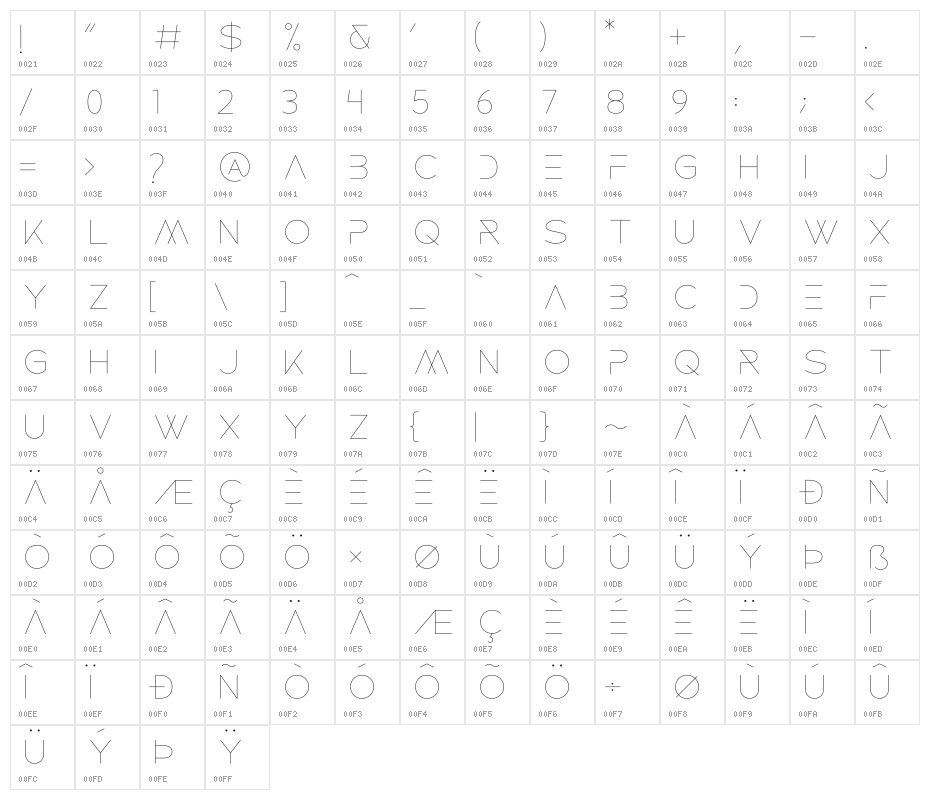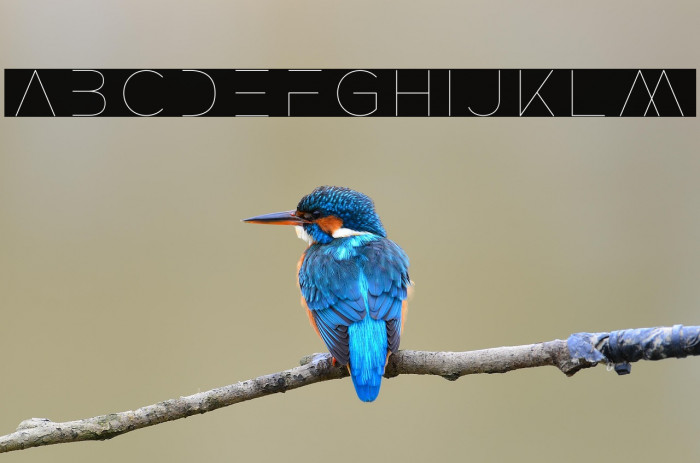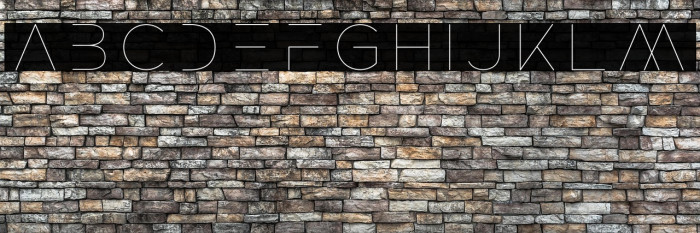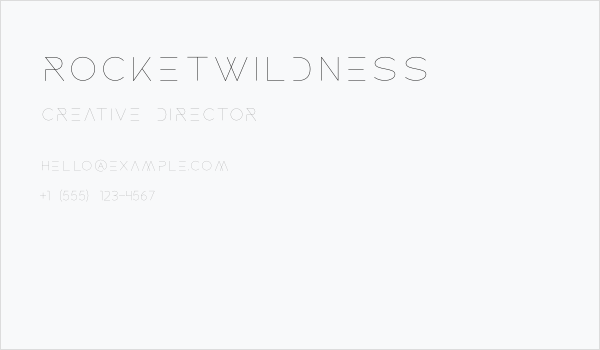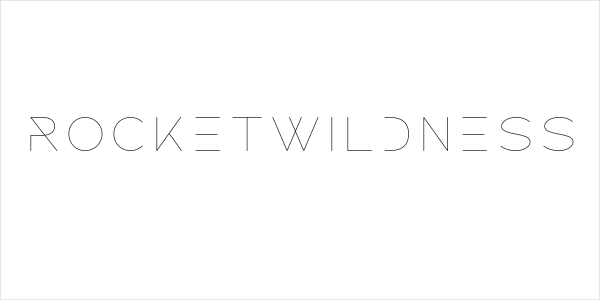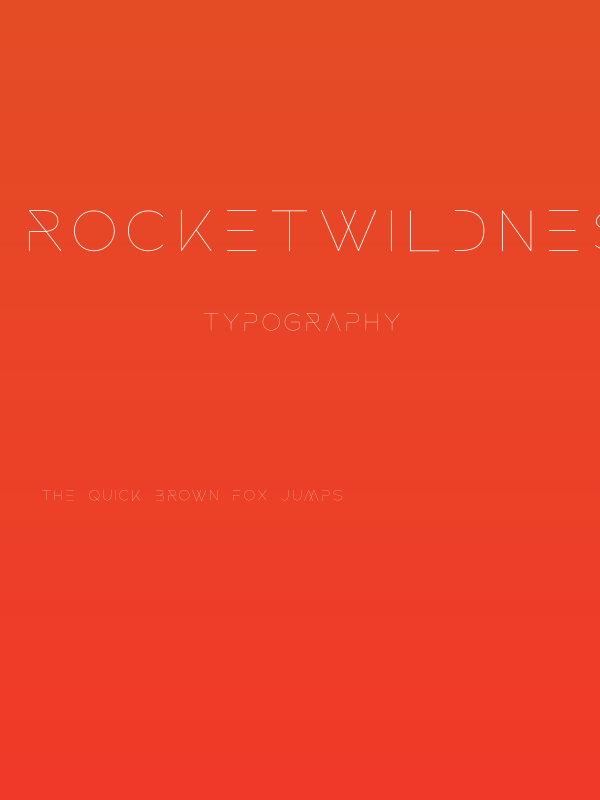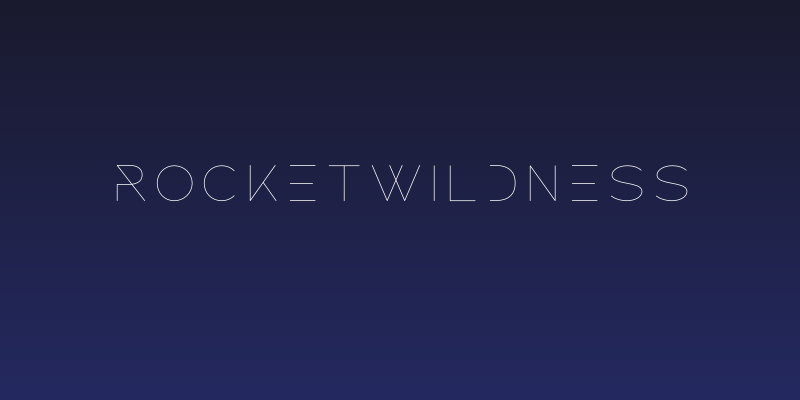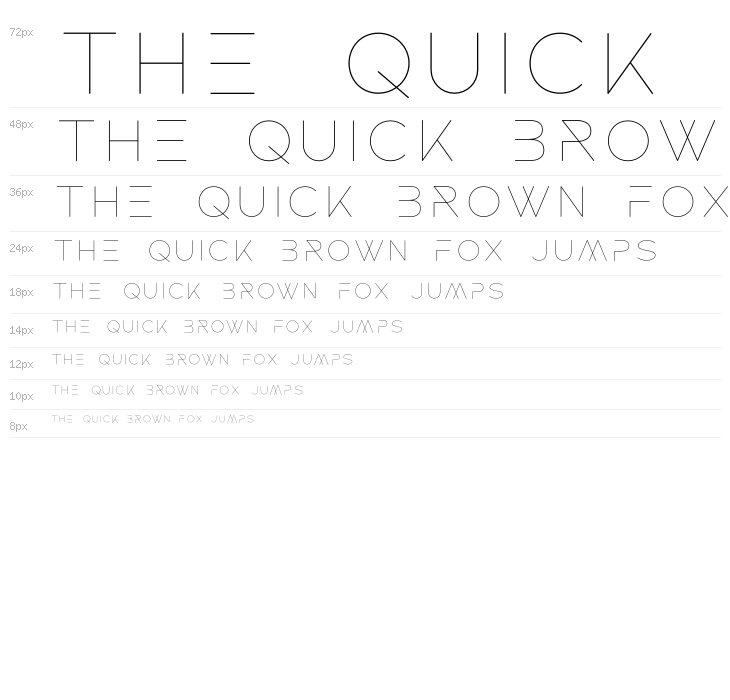
ROCKETWILDNESS Font
ROCKETWILDNESS Description
This font features a sleek, geometric design with a futuristic flair. Each character is crafted with precision, showcasing clean lines and a minimalist aesthetic. The uppercase letters have a distinct angularity, while the lowercase letters maintain a consistent style, offering a harmonious balance. The numerals are equally modern, with a uniform stroke width that complements the overall design. Special characters are thoughtfully integrated, maintaining the font's cohesive appearance. This typeface is ideal for projects that require a contemporary and innovative look.
| Use Case | Headlines, Logos, Digital Interfaces |
| Proposed Projects | Ideal for tech branding, modern advertising, futuristic posters, and digital interfaces. |